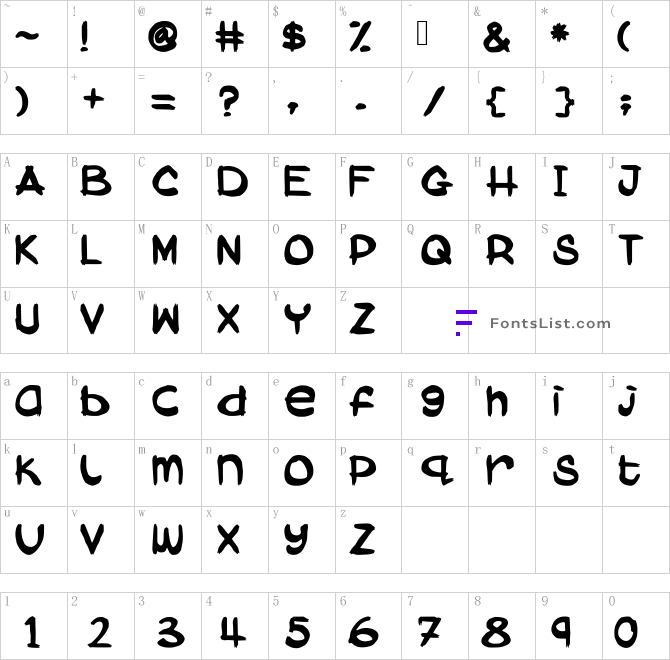
- Font Name:AbokiDreadlockJamSuya
AbokiDreadlockJamSuya.ttf is a very beautiful artistic font, AbokiDreadlockJamSuya.ttf is widely used in the design and printing of various books and pictures,AbokiDreadlockJamSuya.ttf has a strong visual impact,AbokiDreadlockJamSuya.ttf is a commonly used font in newspapers, magazines and books, and is used in posters, e-commerce Poster design, store design, logo design, font design and other fields.AbokiDreadlockJamSuya.